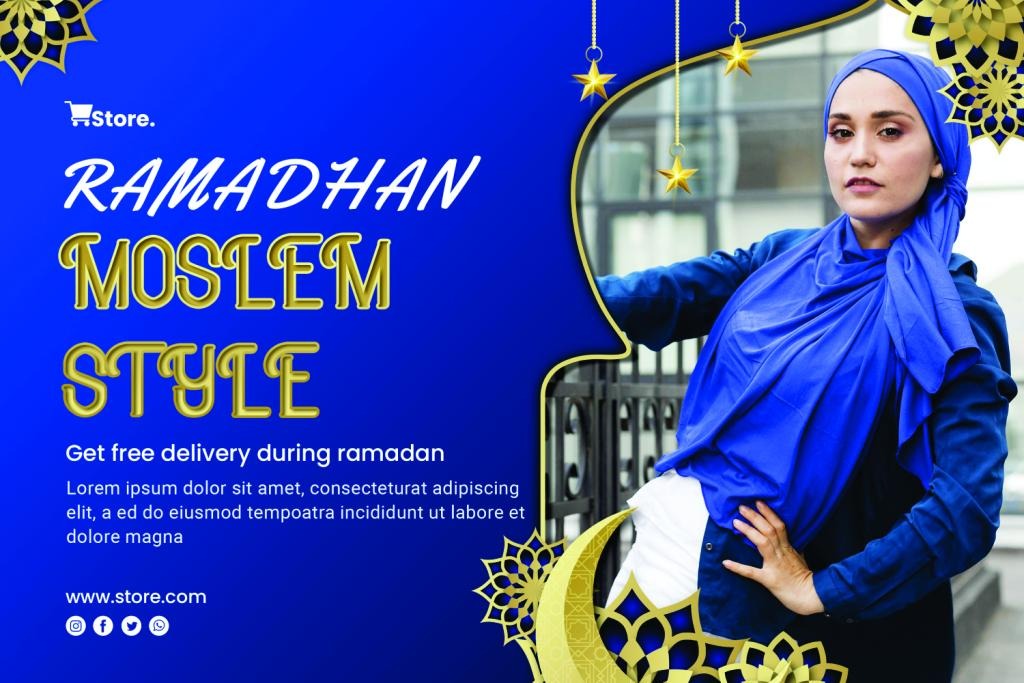
Puasa Ramadhan Display Font
This is a unique display font manufactured by Mozatype. A casual 70’s style hand-drawn retro slab serif with some groovy Opentype stylistic alternates – see previews above for the alternates you get. it’s would perfect seasonal projects like Islamic Banner, Greeting Cards, Ramadhan Sale.